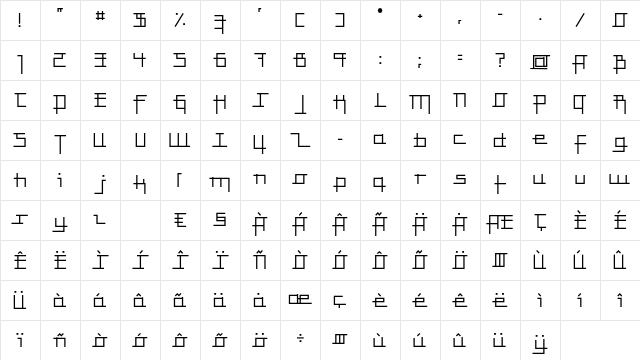
Anlinear LT Std is a composed and adaptable typeface that performs quietly and consistently across a wide range of design contexts. Its slender proportions lend an understated elegance to any composition.